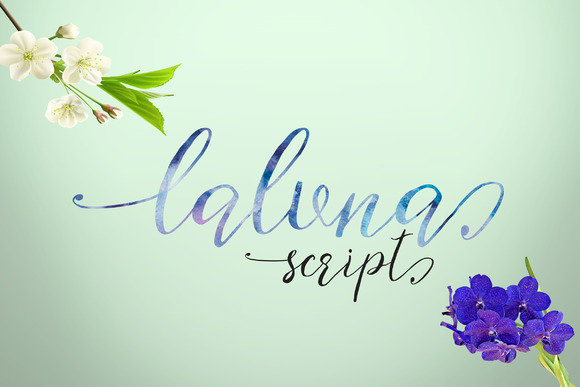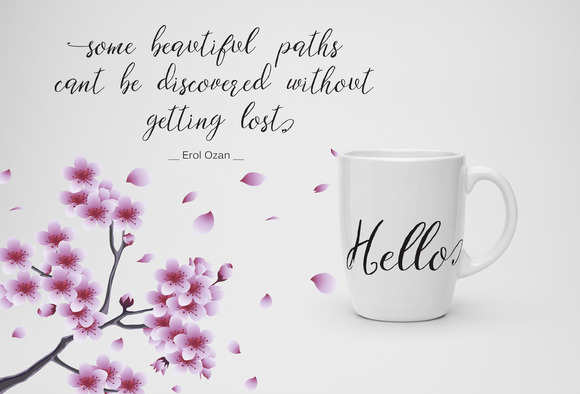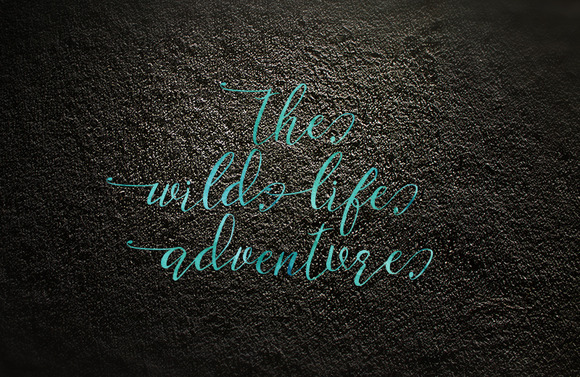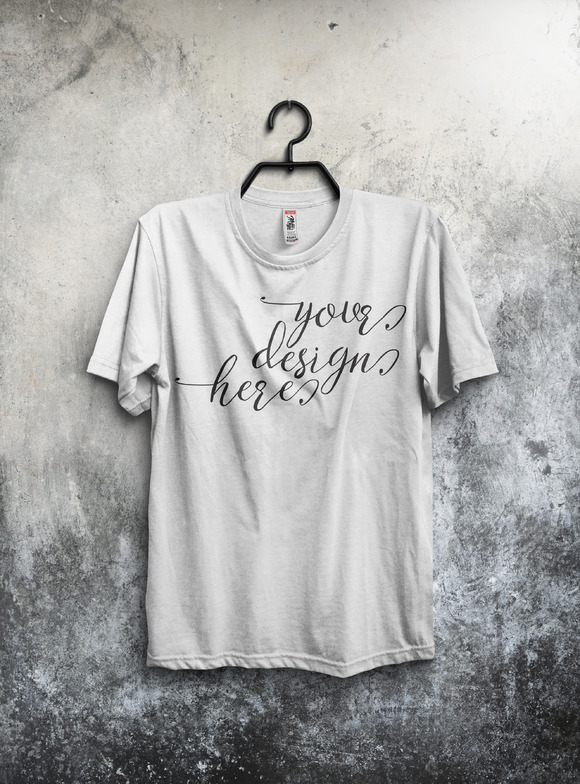
Laluna
Laluna Script Font
LalunaScript is a new varieties of handlettered script font, allowing you to completely make-each word look stylish! With smooth style and petite, elegant with a long thin connections that make it look luxurious and original.